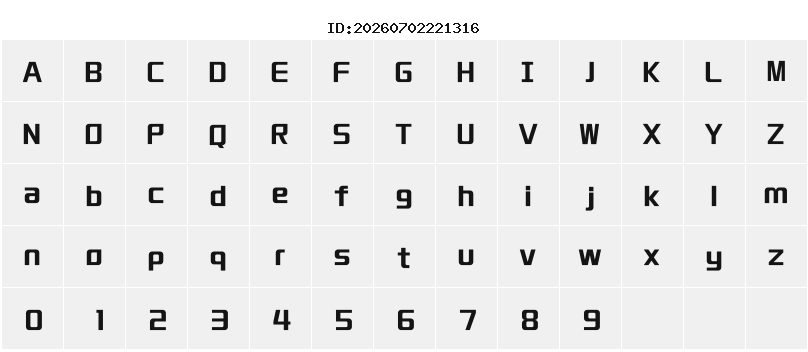
148-上首标榜体 Preview
148-上首标榜体.ttf is a modern, elegant sans-serif font designed for ultimate readability and visual harmony. Perfect for branding, headlines, web design, and print materials.